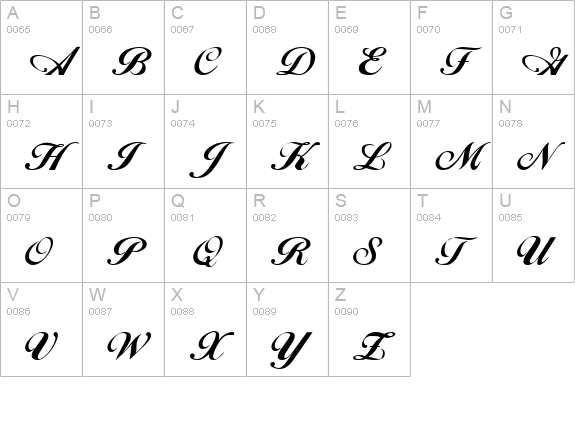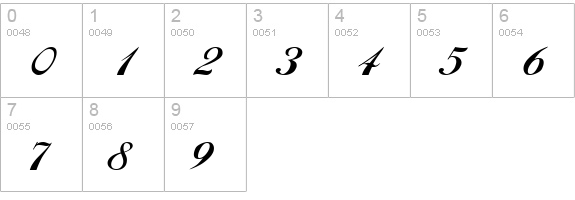
Alison Regular Font Details
Alison Regular is the standard, neutral variant in the Alison typeface family \xE2\x80\x94 well suited to general body text, paragraphs, and standard typographic work.
Alison Regular font is a versatile and modern typeface that exudes elegance and sophistication. With its clean lines and balanced proportions, Alison Regular is suitable for a wide range of design projects, from branding and advertising to editorial layouts and packaging. This timeless font is perfect for conveying a sense of professionalism and refinement. The best part is that Alison Regular is available for free download at FontsMarket.com. Now you can easily access this high-quality font without any cost, making it a valuable addition to your font collection. Don't miss out on the opportunity to enhance your designs with the timeless beauty of Alison Regular.